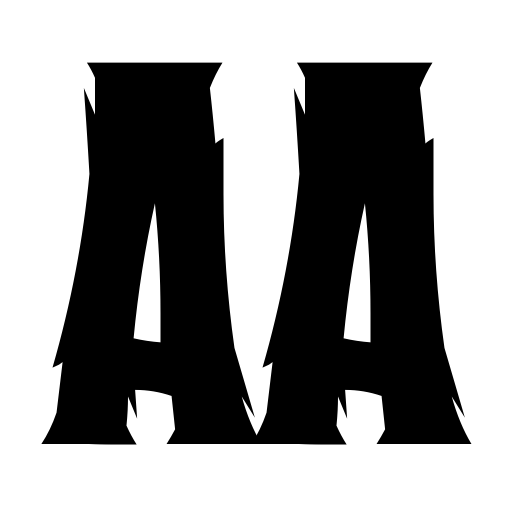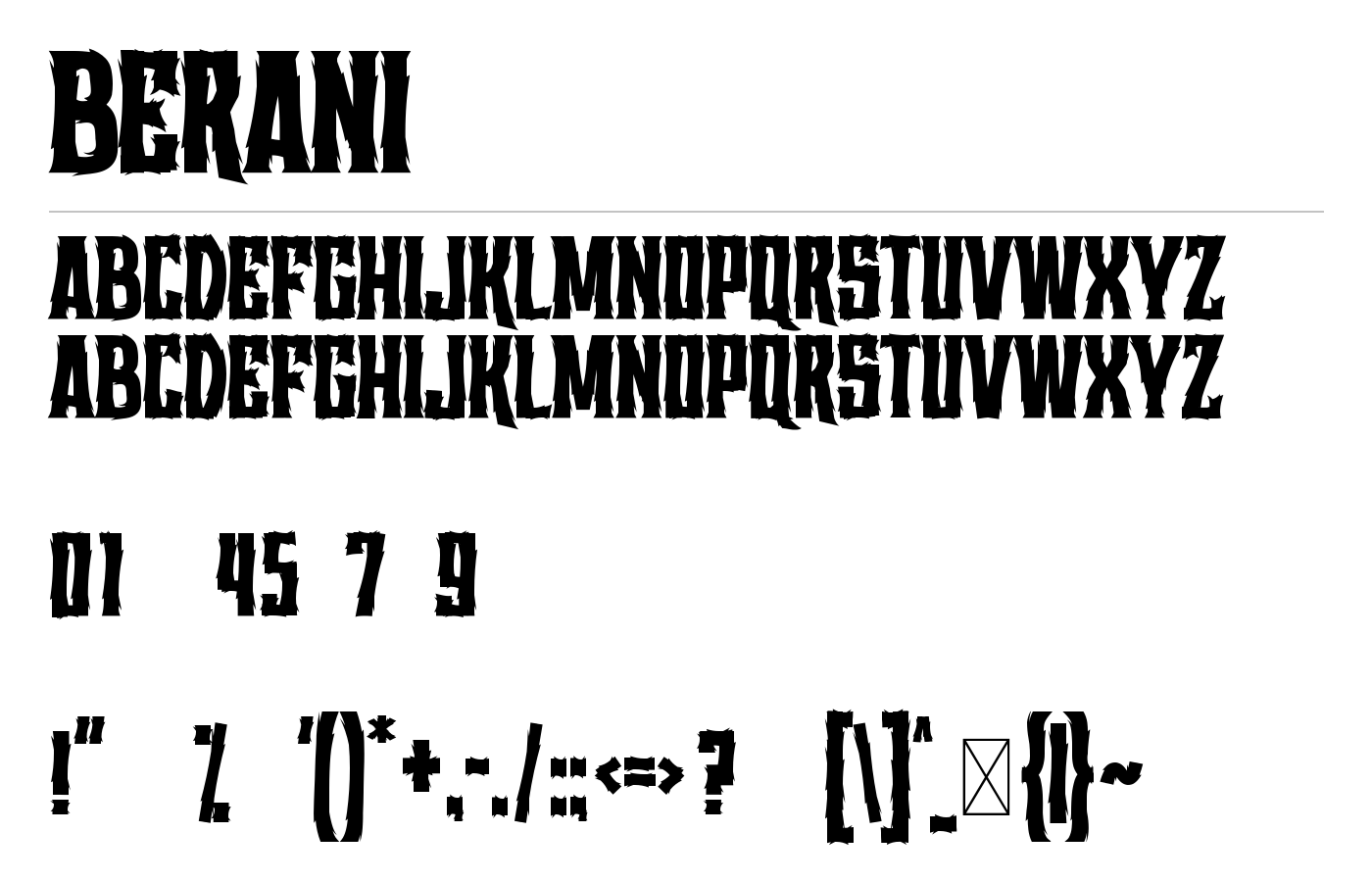
Berani is a bold, condensed display font with a strong, rugged character, featuring sharp, jagged edges that give it a distressed and aggressive look. Its tall, narrow letterforms and heavy weight make it ideal for impactful headlines, logos, and designs that need a bold, edgy, and commanding presence. This font works especially well in creative branding, posters, and any visual project that aims to convey strength and intensity with a touch of raw, unconventional style.
Berani Font
About Berani Font
| Font family | Berani Font |
| Designer | Anang F & Malik Wsn | Gassstype© Studio 2021 |